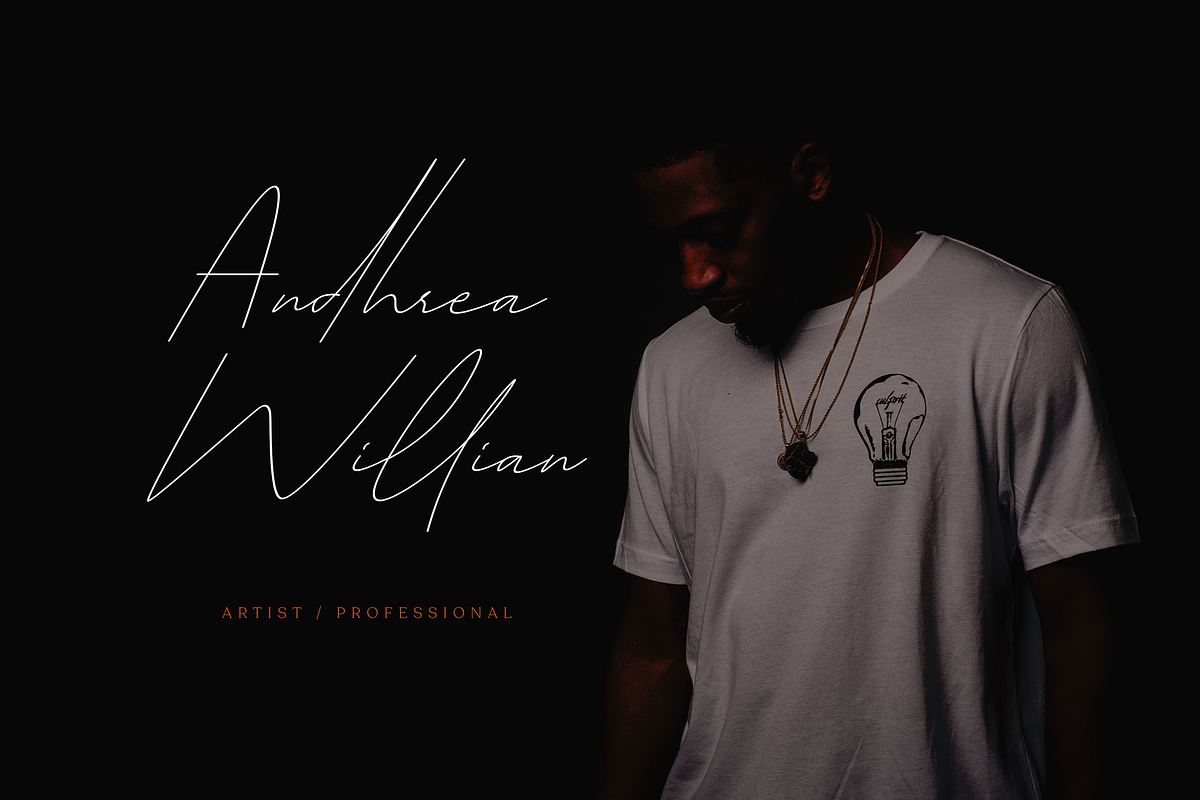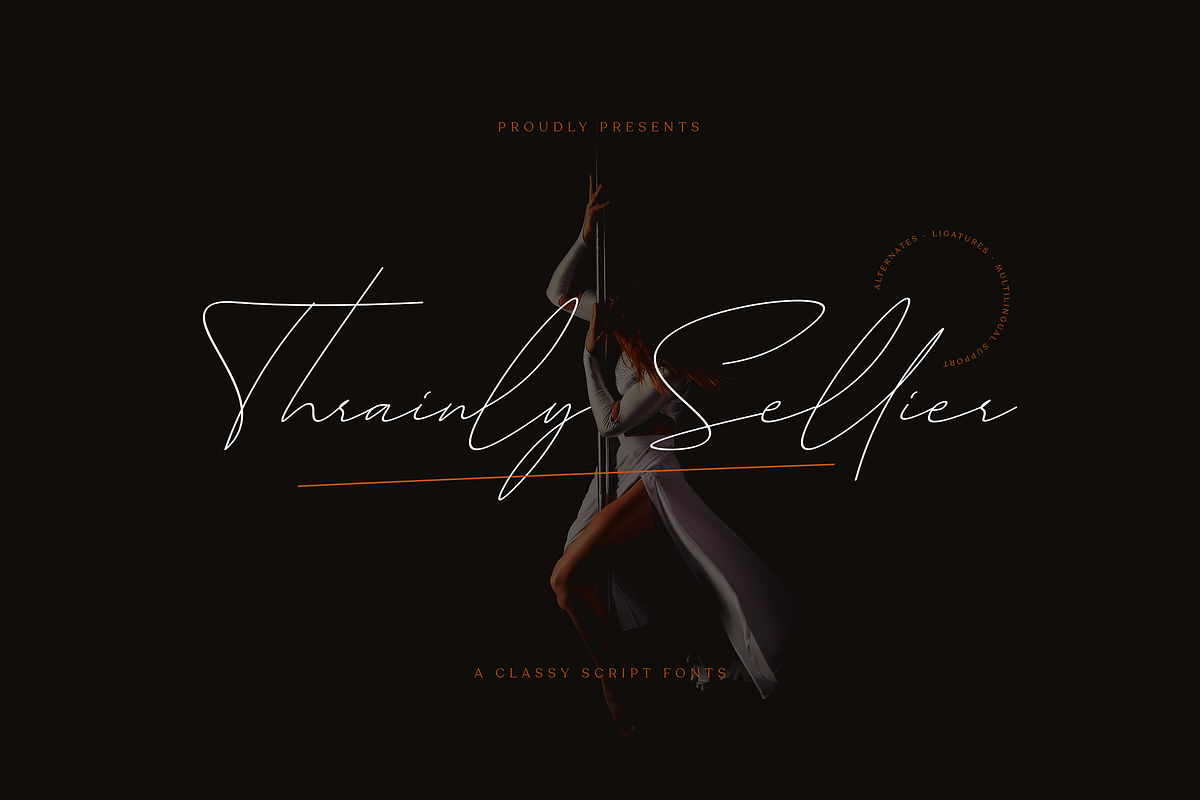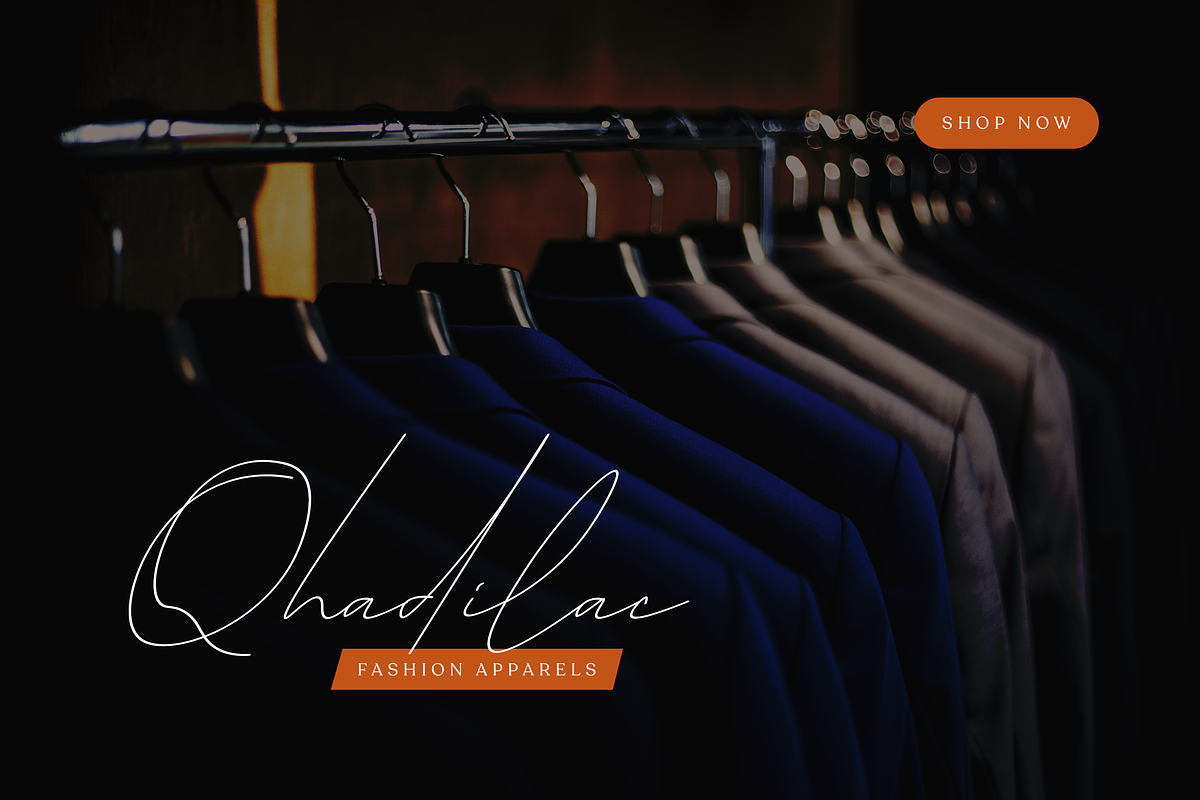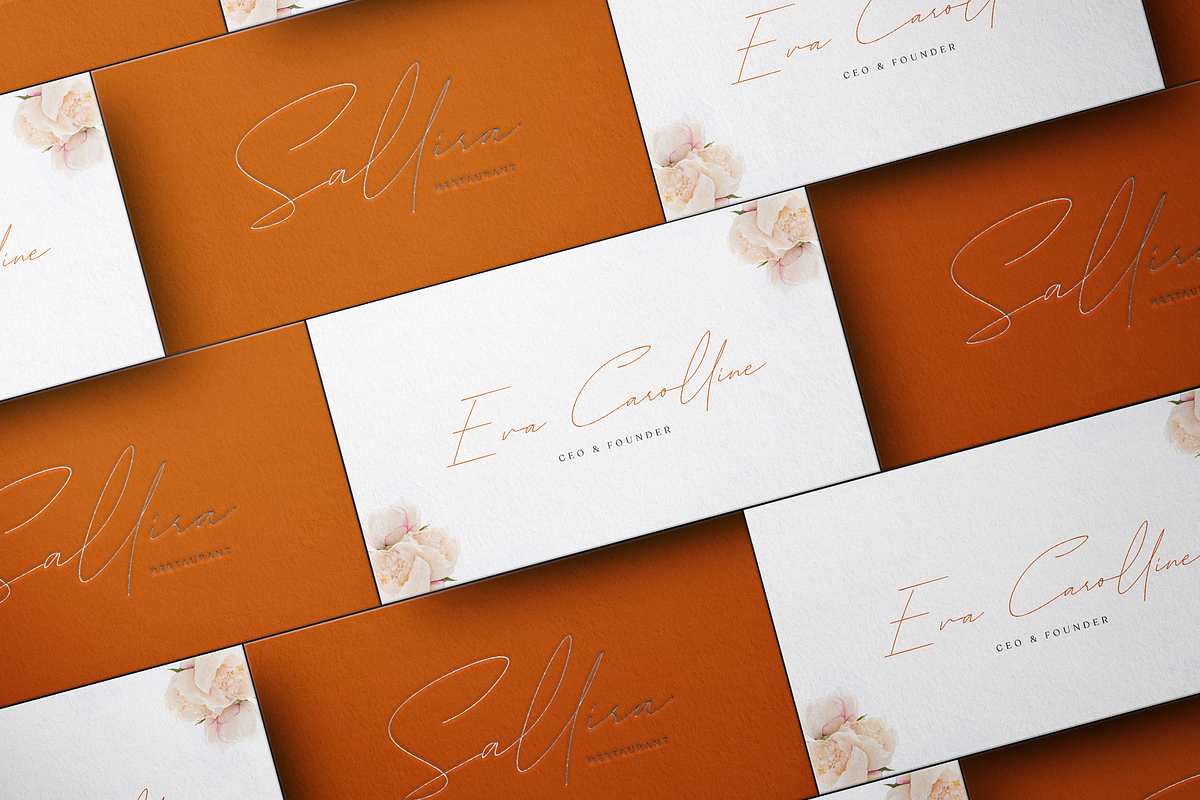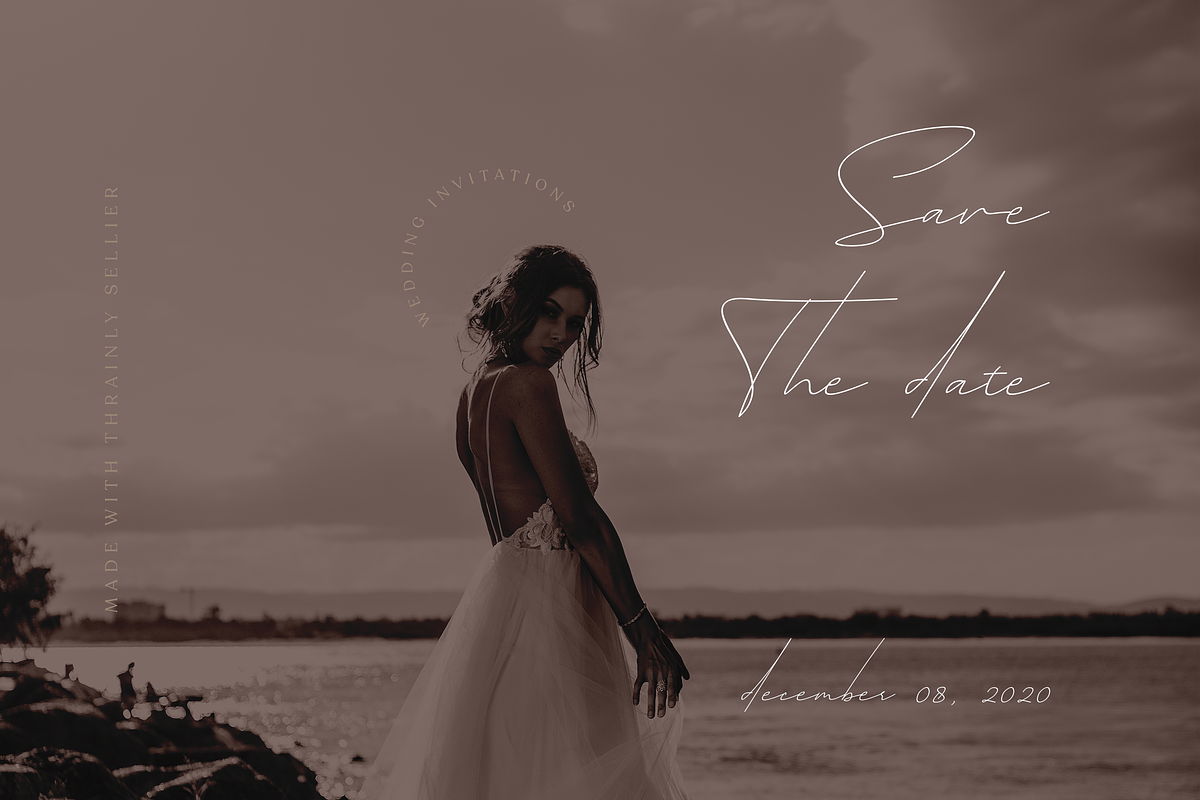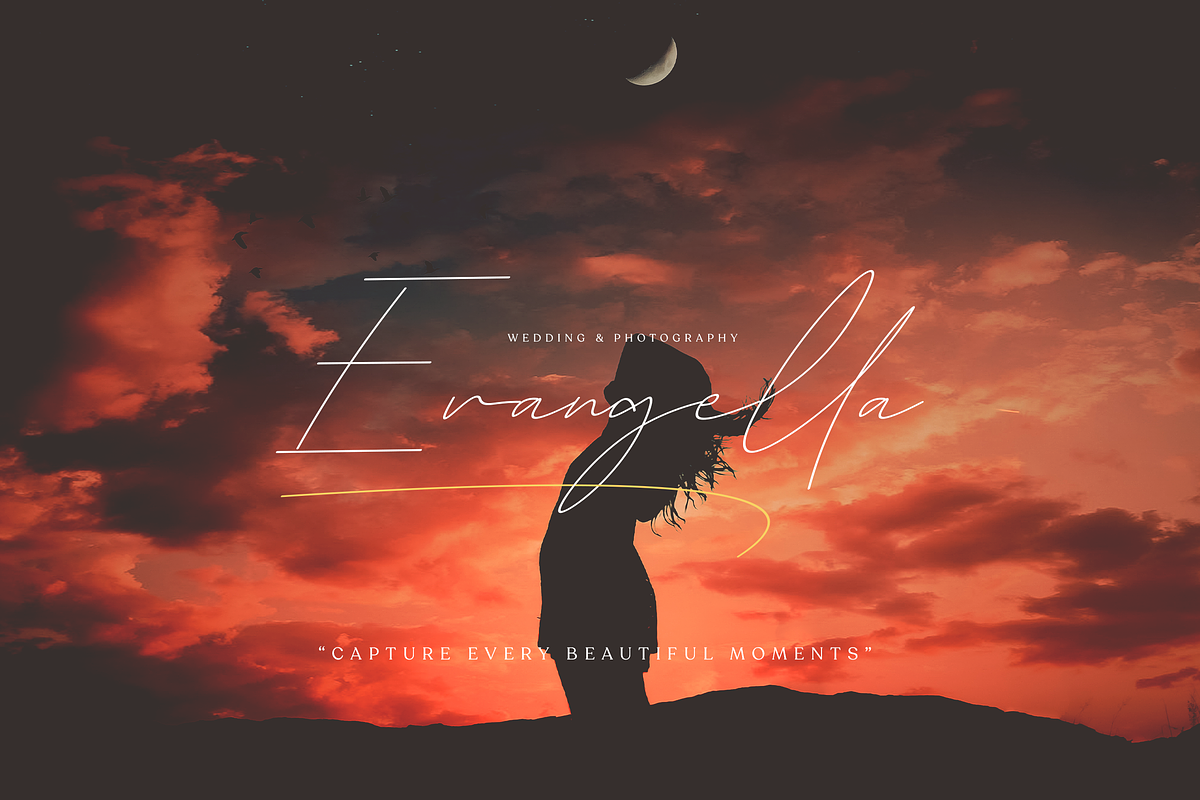
Thrainly Sellier
Classy handwritten script font with authentic styles. Includes uppercase and lowercase letters, numerals, punctuation, alternates, ligatures, swash and multilingual support. Perfect for elegant logos, upscale packaging, wedding stationery, websites, and any other projects requiring a handwritten and luxurious touch.